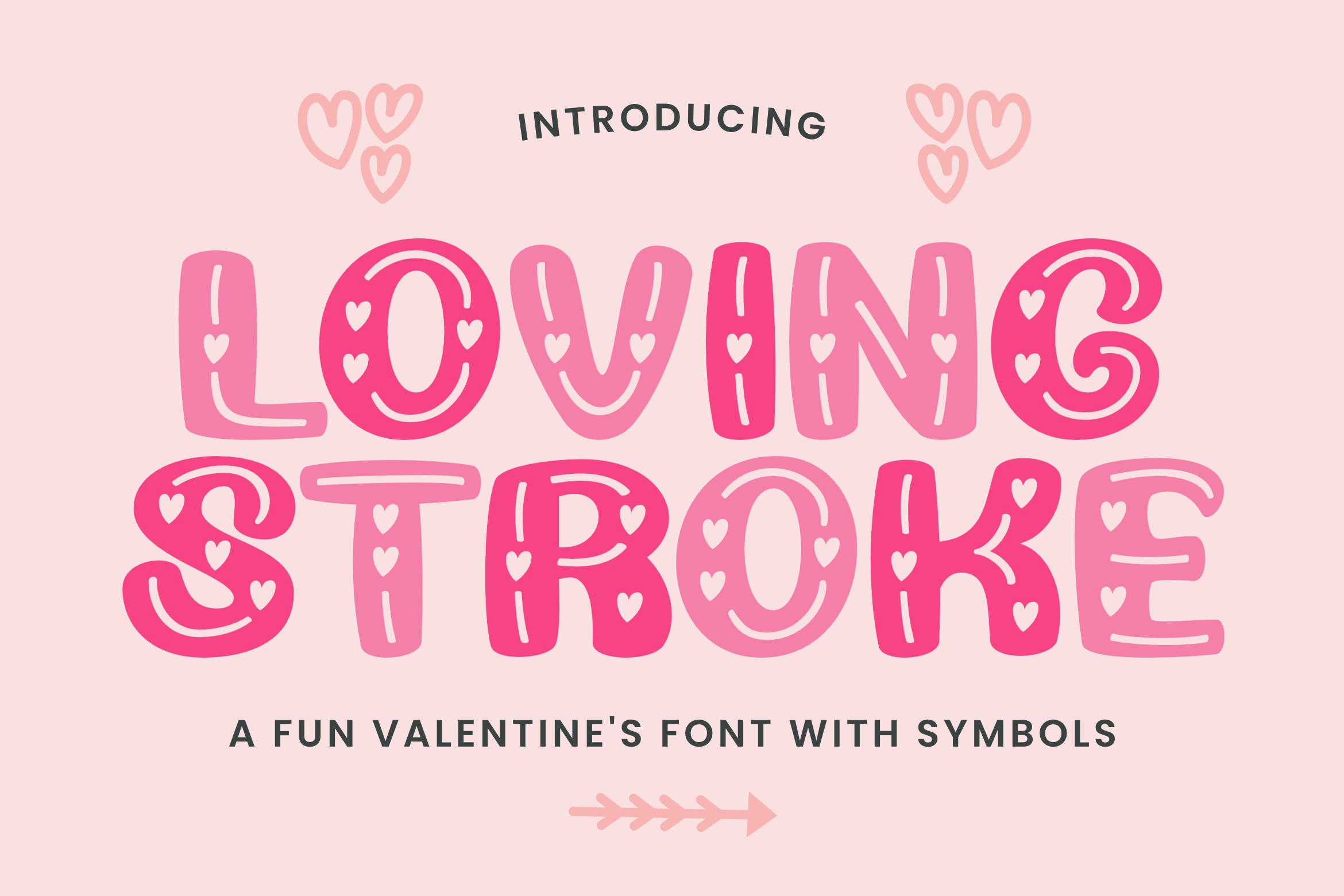
Loving Stroke Font
About Loving Stroke
Loving Stroke is a sweet and adorable font. It has decorative uppercase letters and cute lowercase dingbats full of love symbols and elements. This unique, lovely combo will help you create unique Valentine’s Day designs.